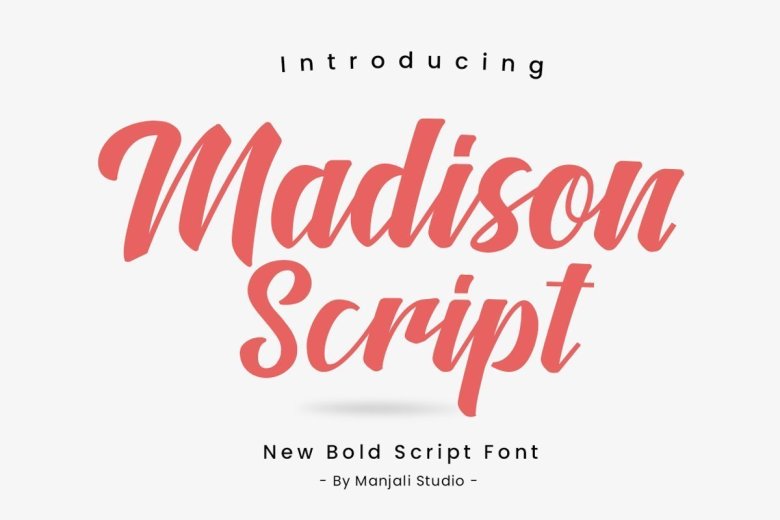
Madison Bold Script Font
Madison Bold Script Font is a handwritten typeface that is perfect for branding, social media headers, product packaging, wedding invites and cards and so on. This font is completely hand-drawn and contain ligatures to perfectly re-create natural handwriting.